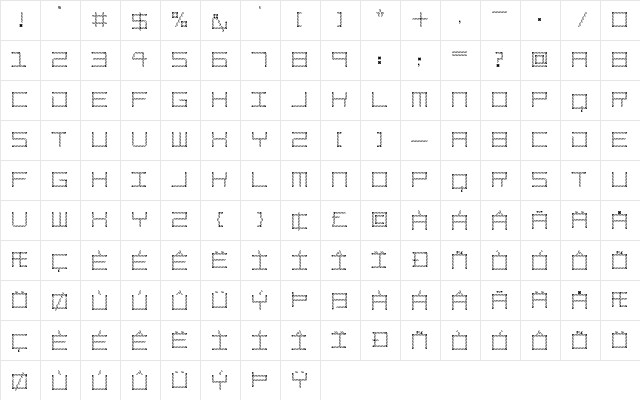
Amaya Technical Leaves Regular
| Designer | snapdragongirl |
Design Context for Amaya Technical Leaves Typeface
Amaya Technical Leaves has a distinctly futuristic character, with geometric precision and clean angles that feel at home in technology, gaming, and sci-fi contexts.